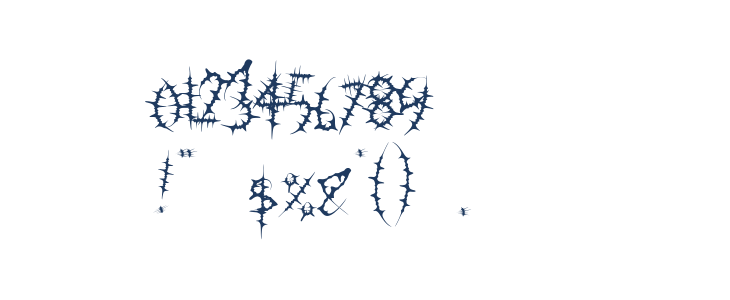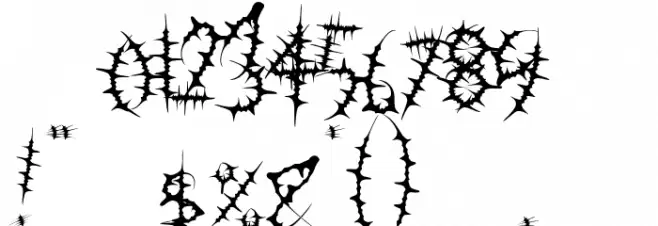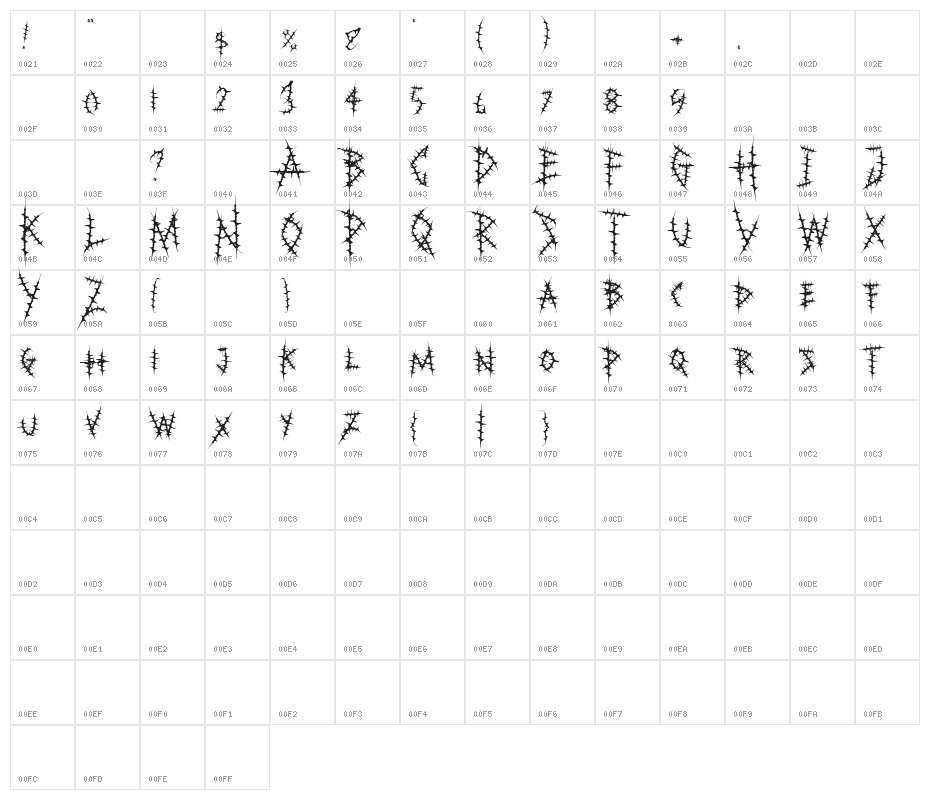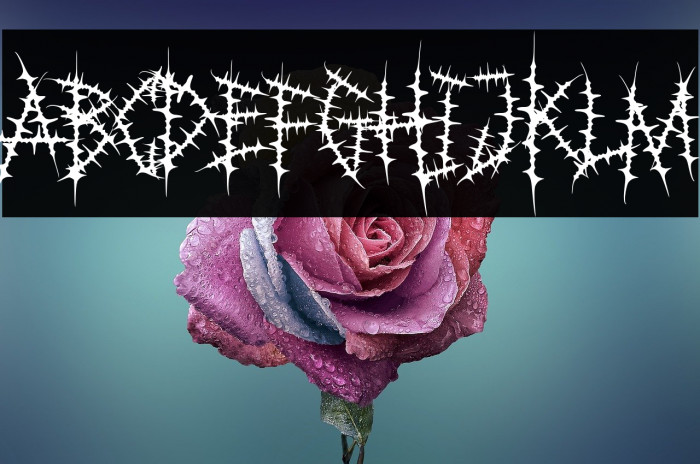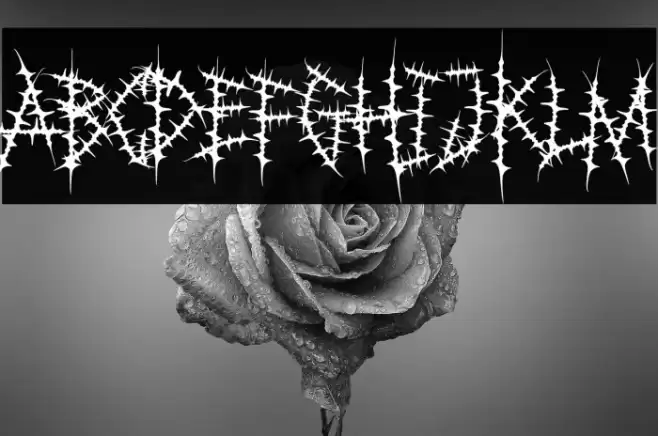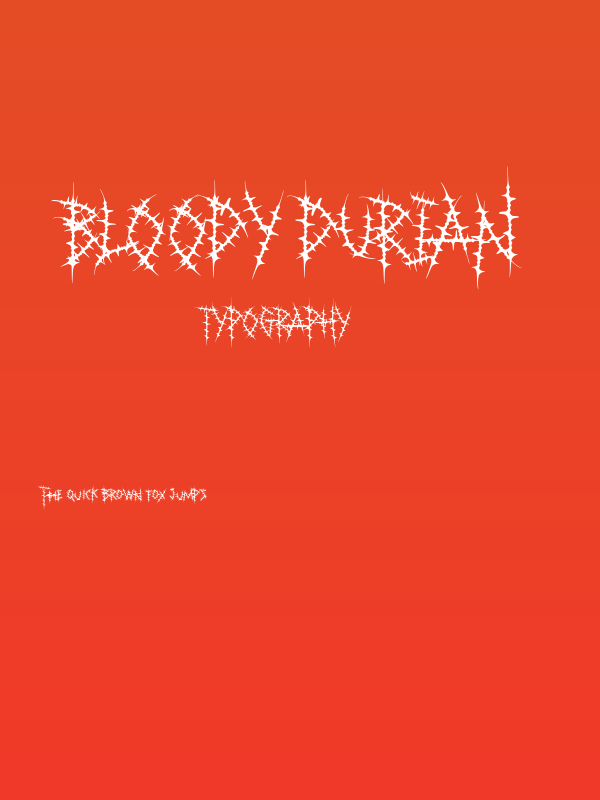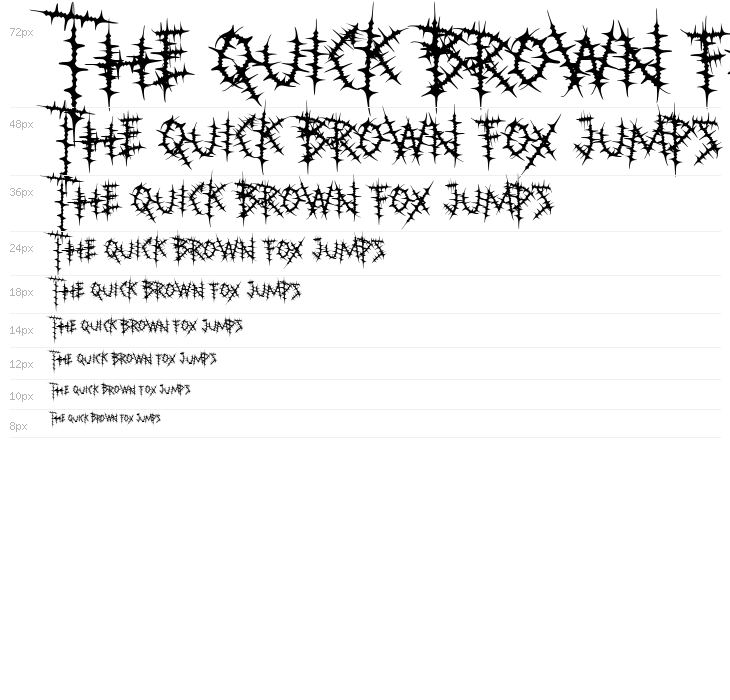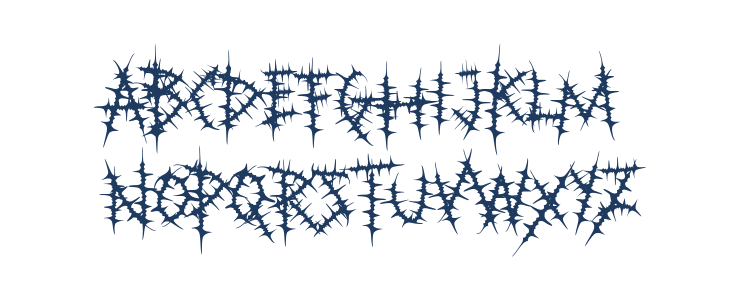
Bloody Durian Font
Bloody Durian Description
This font features a highly decorative and edgy style, characterized by sharp, thorn-like extensions protruding from each letter. The design evokes a sense of danger and intensity, with each character appearing as if it is wrapped in barbed wire. The intricate detailing and unique form make it stand out, creating a visually striking appearance that is both chaotic and artistic. The font maintains legibility despite its complex design, making it suitable for impactful and dramatic visual statements.